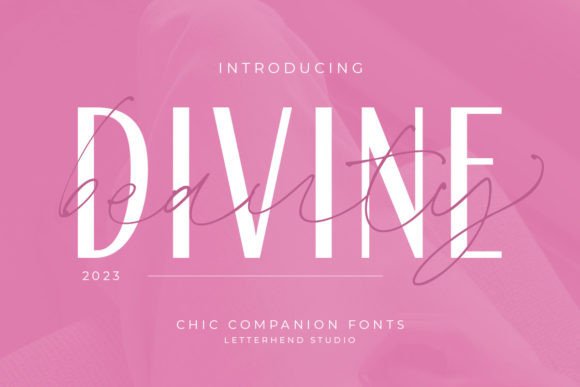
Introducing Divine Beauty Font: The Epitome of Elegance and Modernity for Your Digital Creations
In a world clamoring for visual distinction, your online presence demands a voice that speaks volumes. Enter Divine Beauty Font, an exquisite sans serif creation that weaves simplicity with modernity like a master storyteller. Its clean lines and balanced proportions form a canvas of elegance, while the harmonious curves and flourishes lend a touch of sophistication that's sure to leave your audience spellbound.
With Divine Beauty Font, you hold the key to unlocking a world of creative possibilities. Whether you're crafting a stunning website, designing captivating logos, or creating eye-catching social media posts, this font family becomes your trusty companion. Its effortless style complements any visual landscape, adding a touch of understated glamour that elevates your content to new heights.
As a creative, you understand the power of visual appeal. Divine Beauty Font recognizes this, offering an extensive character set that caters to a myriad of languages. Its multilingual prowess ensures that your message resonates across borders, reaching a global audience with the same emotional impact. Whether you're targeting a local or international market, Divine Beauty Font empowers you to communicate effectively and stylishly.
The Divine Beauty Font family is meticulously crafted to adapt seamlessly to your creative vision. Its comprehensive range of weights—from the delicate Hairline to the bold Black—provides the flexibility to create striking headlines, elegant body text, and everything in between. Each weight carries the same essence of sophistication, ensuring a cohesive and visually harmonious experience for your readers.
In the realm of digital design, versatility is a virtue. Divine Beauty Font embraces this virtue wholeheartedly, lending itself effortlessly to a myriad of creative endeavors. Its clean lines and modern aesthetics make it the perfect choice for minimalist designs, while its elegant curves and flourishes add a touch of timeless charm to traditional layouts. Whether you're aiming for a sleek and contemporary look or a more classic and sophisticated aesthetic, Divine Beauty Font is your ultimate ally.
As a creator, you pour your heart and soul into your work. You deserve a font family that respects and amplifies your vision. Divine Beauty Font understands this, offering impeccable quality and attention to detail in every character. Its smooth curves and razor-sharp edges are crafted with precision, ensuring that your creations exude professionalism and polish.